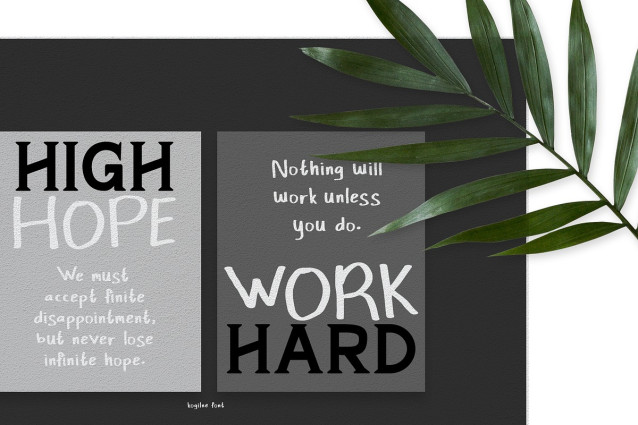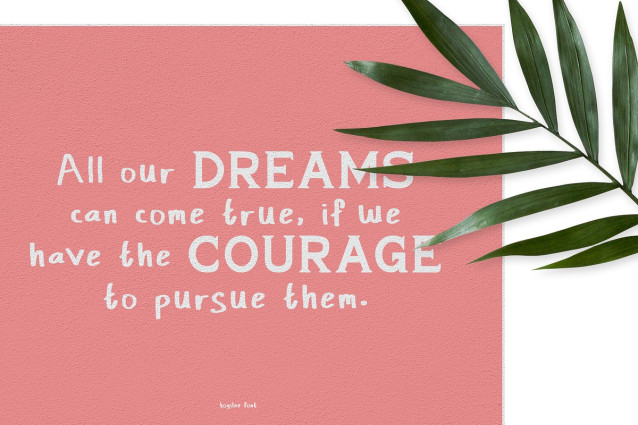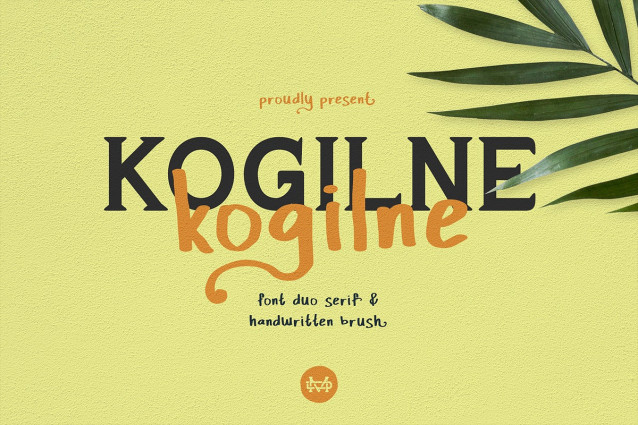
Kogilne Font Duo
Kogilne Font Duo, an elegant and classy Duo serif font combined with a natural handwriting stroke. This font has a minimalist and simple look. However, this font brings a classy and attractive style to modern logos, websites, social media quotes, wedding stationery, etc.